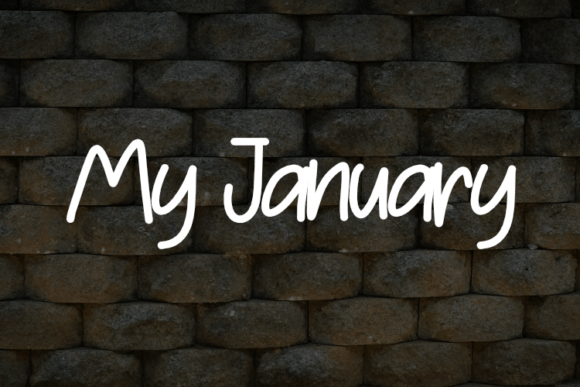
My January Font: Elevate Your Designs with a Seamlessly Versatile Typeface
Are you on the hunt for a font that can effortlessly elevate your fashion designs and adapt to various creative projects? Look no further than My January, a versatile and universally compatible font engineered for fashion design and beyond. In this article, we’ll dive into the features and benefits of My January, and explore how this font can bring your designs to life.
The Birth of My January
My January is a thoughtfully crafted font, designed to cater to the needs of fashion designers, artists, and creatives alike. Its creation was inspired by the desire to produce a typeface that could seamlessly integrate with various design platforms and software, making it a perfect fit for a wide range of applications.
The font’s design is characterized by its clean lines, elegant curves, and a balanced aesthetic that exudes sophistication and style. Whether you’re working on a clothing brand, t-shirt design, or any other project, My January provides a solid foundation for your creative vision.
Universal Compatibility: The Key to Endless Possibilities
Fashion Design and Beyond: Endless Applications
My January is specifically engineered for fashion design, making it an ideal choice for clothing brands, t-shirt designers, and artists working in the fashion industry. However, its versatility extends far beyond fashion, making it suitable for a wide range of creative projects.
Some potential applications of My January include:
- Fashion design: clothing, t-shirts, accessories, and more
- Graphic design: logos, branding, advertising, and marketing materials
- Digital art: illustrations, animations, and digital paintings
- Web design: website headers, buttons, and other UI elements
- Print design: brochures, flyers, posters, and business cards
Bring Your Designs to Life with My January
My January offers a unique combination of style, versatility, and compatibility, making it the perfect fit for creatives looking to elevate their designs. With this font, you can:
- Create stunning fashion designs that stand out from the crowd
- Develop a consistent brand identity across various platforms
- Experiment with different design styles and ideas
- Collaborate with team members and clients with ease
Whether you’re a seasoned designer or just starting out, My January provides the perfect foundation for your creative projects. Its elegant appearance, versatility, and compatibility make it an indispensable tool in your design arsenal.
Tips and Tricks for Getting the Most Out of My January
To help you get started with My January, here are some tips and tricks to keep in mind:
- Experiment with different font sizes and styles to find the perfect fit for your design
- Use My January in combination with other fonts to create visually appealing contrast
- Don’t be afraid to push the boundaries of My January’s versatility – try it out in different design contexts and see what works best for you
My January is more than just a font – it’s a design solution that offers a unique combination of style, versatility, and compatibility. Whether you’re a fashion designer, graphic artist, or digital creative, this font has the potential to elevate your designs and bring your creative vision to life.